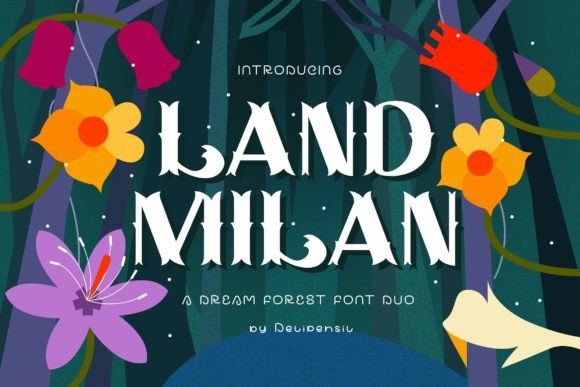
Introducing Landmilan Font, the ultimate serif font designed to revolutionize your creative projects. Created by delipensil, this bold and assertive font is the perfect addition to your fonts' library. With its captivating style and versatile nature, Landmilan Font is the best choice for any flower shop looking to make a lasting impression.
Imagine the power of Landmilan Font in your hands. Its elegant and sophisticated design will bring a touch of class to any text, making it ideal for crafting stunning logos, captivating advertisements, or enchanting website headers. This font is not just about aesthetics; it's a game-changer that will elevate your brand and attract customers like never before.
Landmilan Font boasts a unique blend of strength and grace. Its bold serifs and commanding presence demand attention, while its delicate curves add a hint of elegance. This harmonious combination creates a visual masterpiece that evokes emotions and captures the essence of your brand.
With Landmilan Font, your message will resonate with your target audience. Its timeless appeal and versatility make it suitable for a wide range of applications. Whether you're designing wedding invitations, creating beautiful packaging, or curating a stunning social media feed, this font will effortlessly enhance your content and leave a lasting impression.
Let Landmilan Font be your secret weapon to success. Its keyword-rich design ensures that your content ranks high in search engine results, attracting organic traffic and boosting your online presence. Stand out from the competition and captivate your audience with this font's captivating allure.
But it doesn't stop there. Landmilan Font is more than just a tool for visual communication. It's an experience that engages the senses and sparks emotions. With each stroke and curve, this font tells a story, inviting your audience to embark on a journey with your brand.
Unlock the limitless potential of Landmilan Font and watch your creativity flourish. Its impeccable quality and attention to detail will inspire you to push the boundaries of design and create truly remarkable works of art. From elegant wedding stationery to captivating social media graphics, this font will be your trusted companion throughout your creative endeavors.
Don't settle for ordinary fonts. Choose Landmilan Font and let your imagination soar. Its captivating charm and unique personality will captivate your audience, leaving them in awe of your creativity. Take your flower shop to new heights with the best font for the job – Landmilan Font.